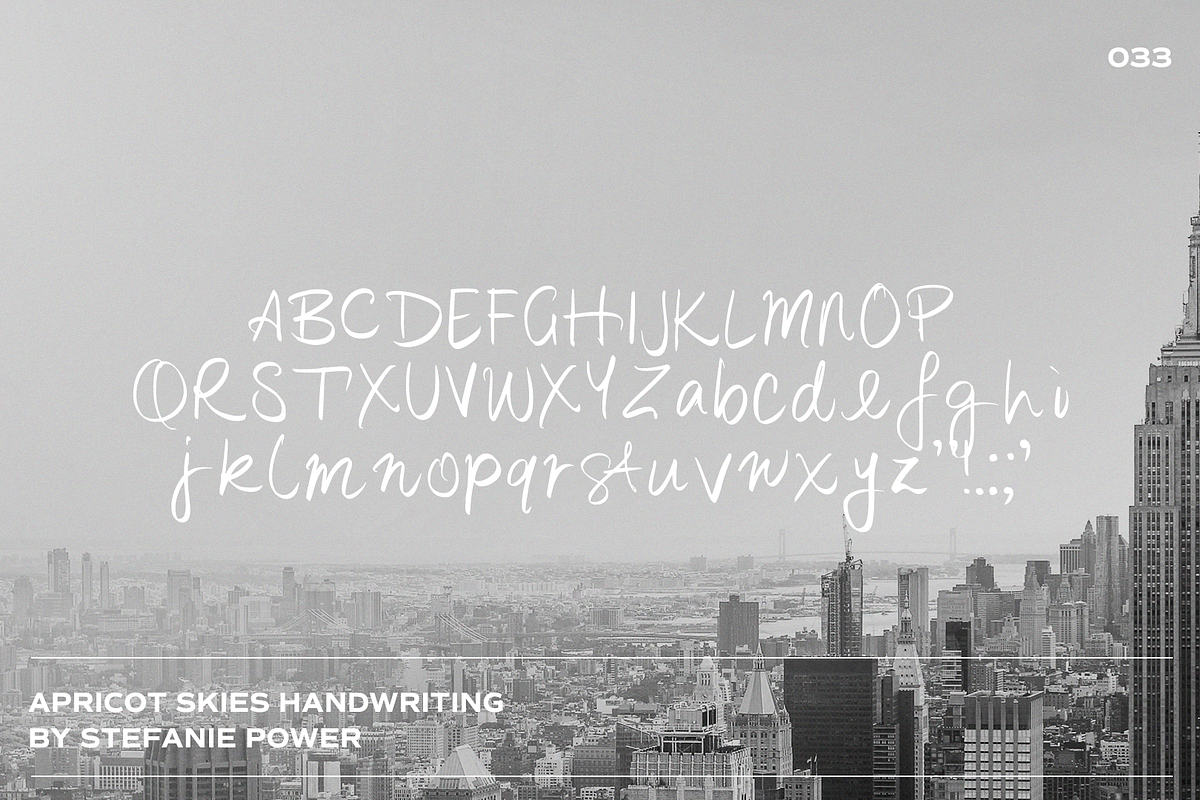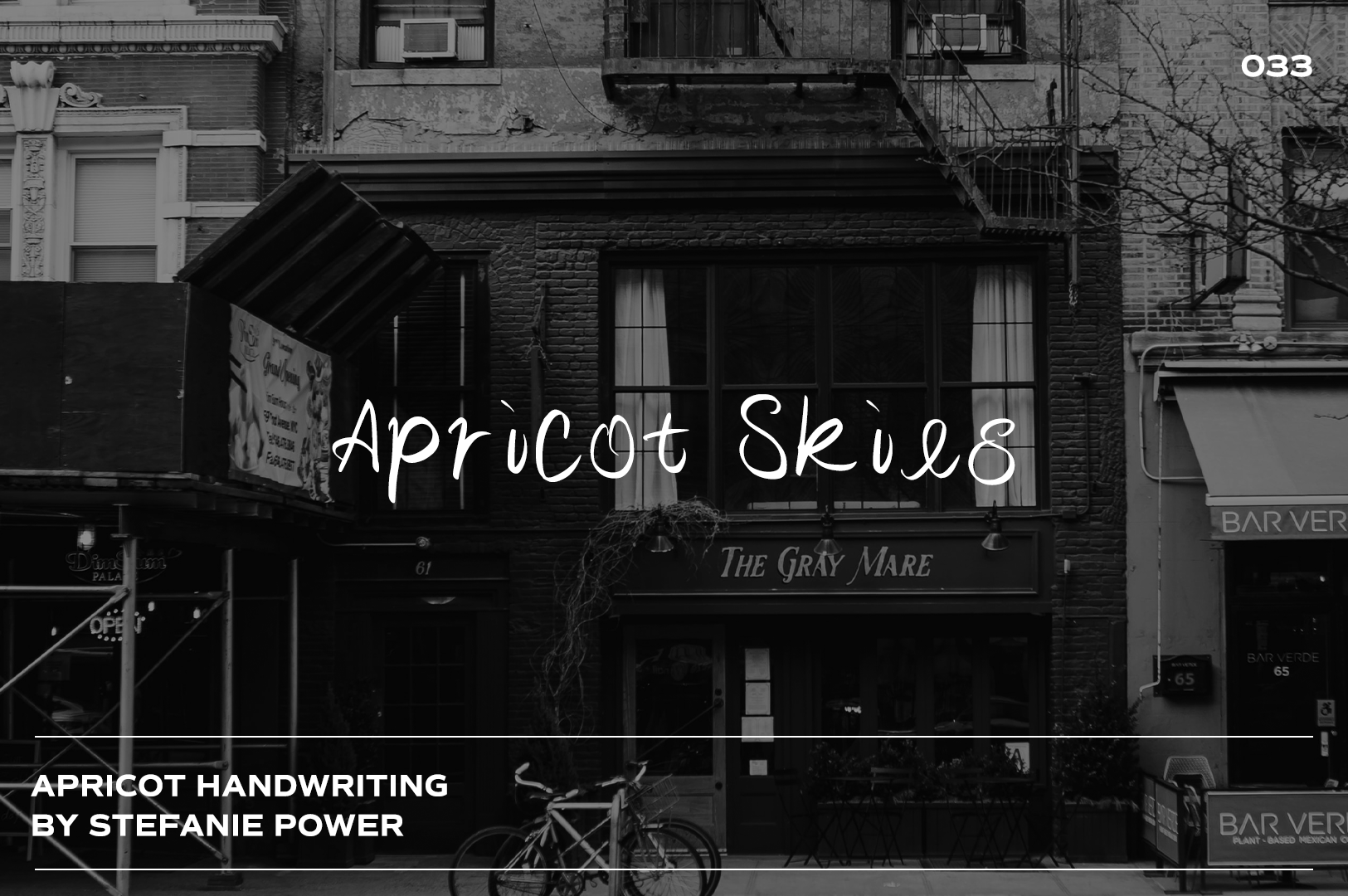
Apricot Skies Handwriting | Font
Introducing 'Apricot Skies' - a beautiful messy font.
Apricot Skies • A handwritten font containing upper & lowercase characters and a range of punctuation and numbers.